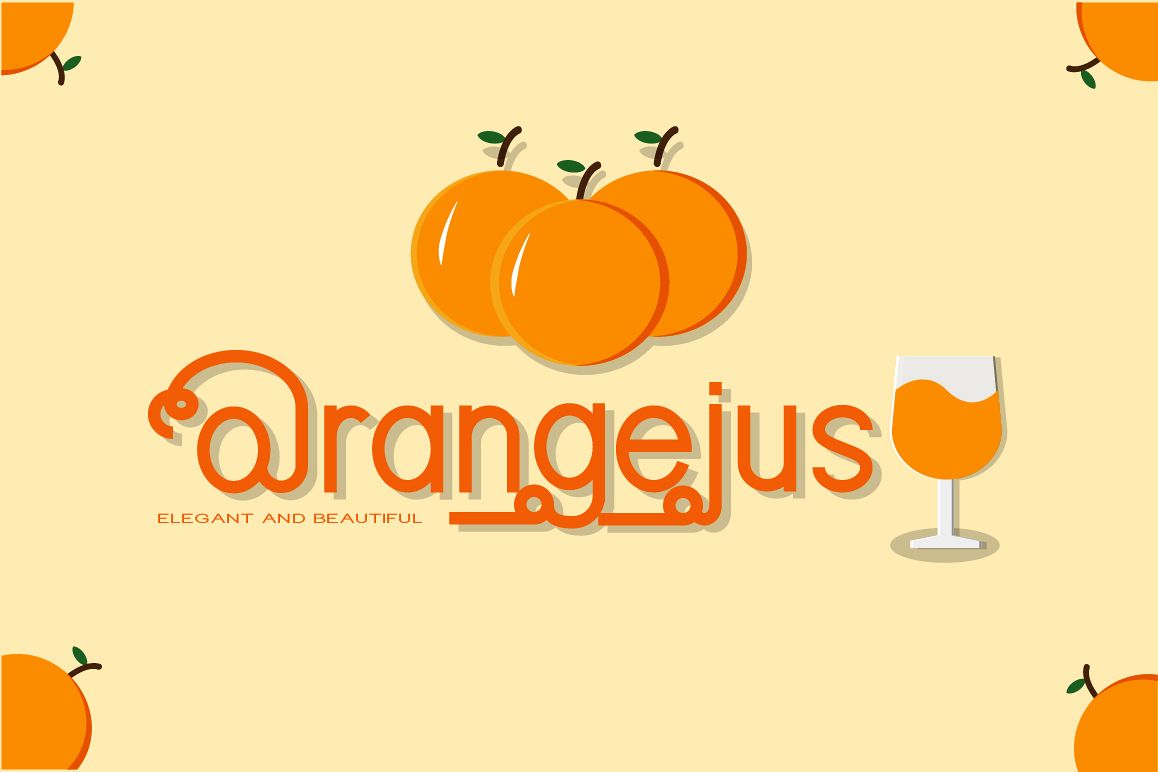
Orangejus
Orangejus is a modern and sweet sans serif font with a playful tone. Get inspired by this one-of-a-kind typeface!
This font good for logo, wedding, card name, writing, magazine etc